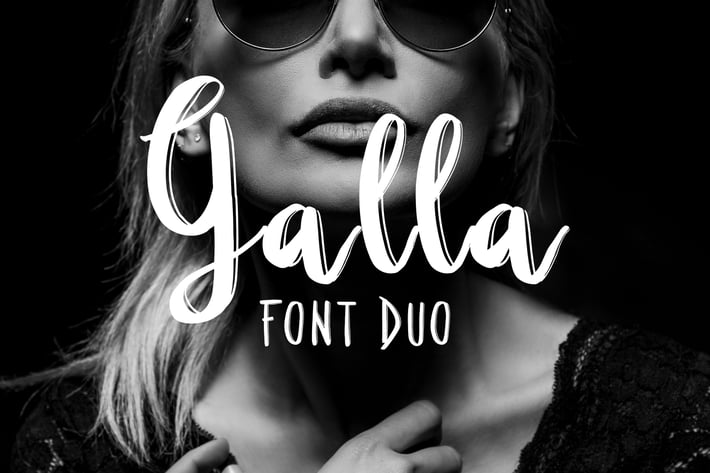
Galla Duo Font
Galla includes uppercase and lowercase letters, numerals and punctuation and it's a perfect choice for signature type texts, titles, invitations or very stylish logos as seen in the presentation images.
Galla Script features:
110 Ligatures
50 Swashes
Numerals